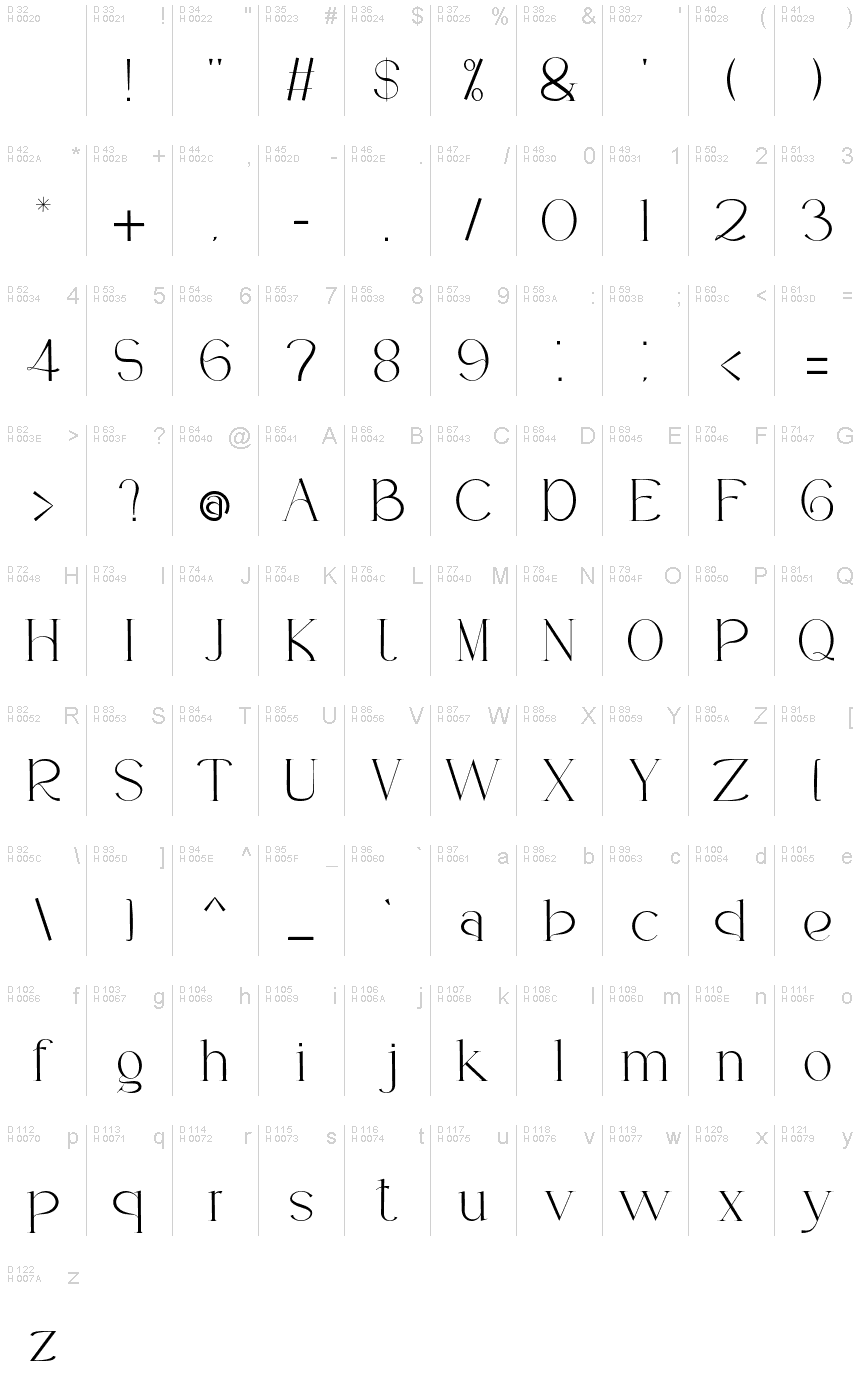
Benaya
Benaya, a modern serif font by Muksal Creative, is perfect for projects ranging from wedding invitations to blog titles. Its light weight and classic serif style make it the perfect choice for a professional yet stylish look.